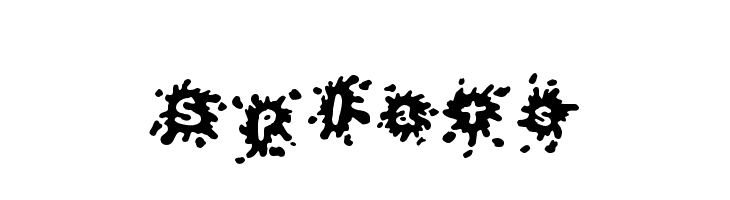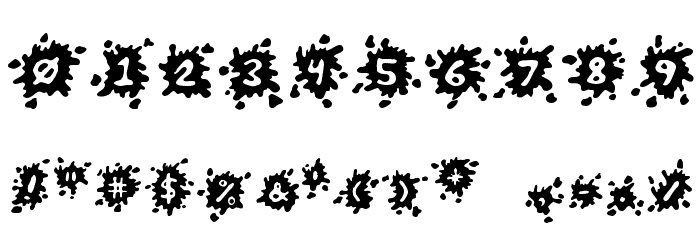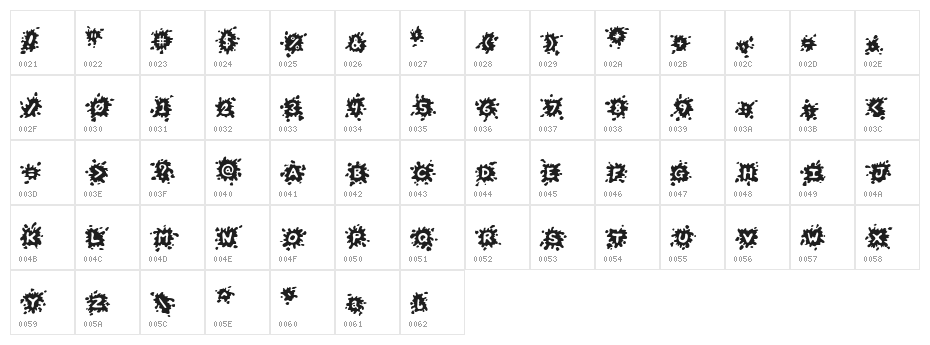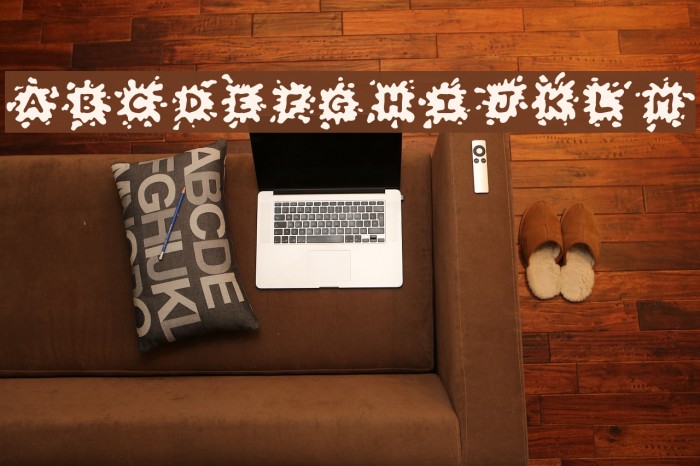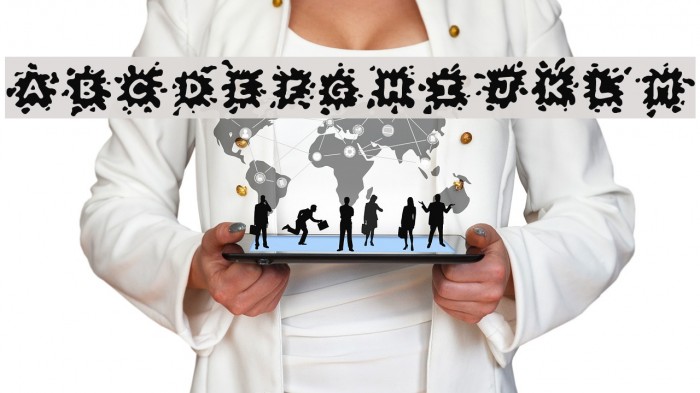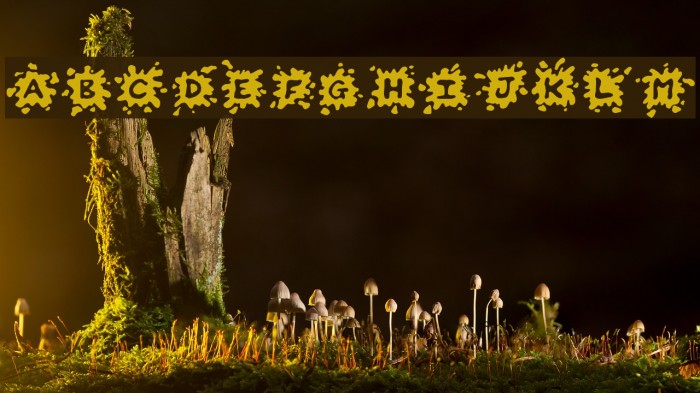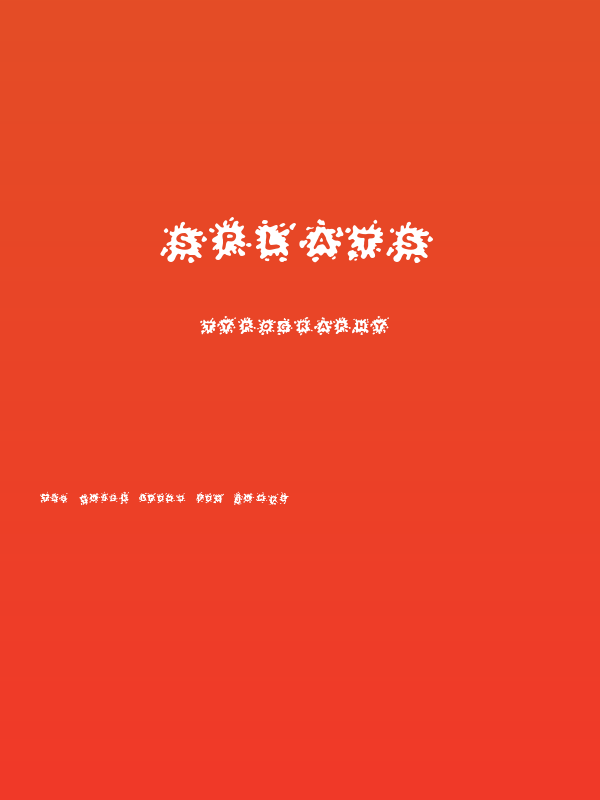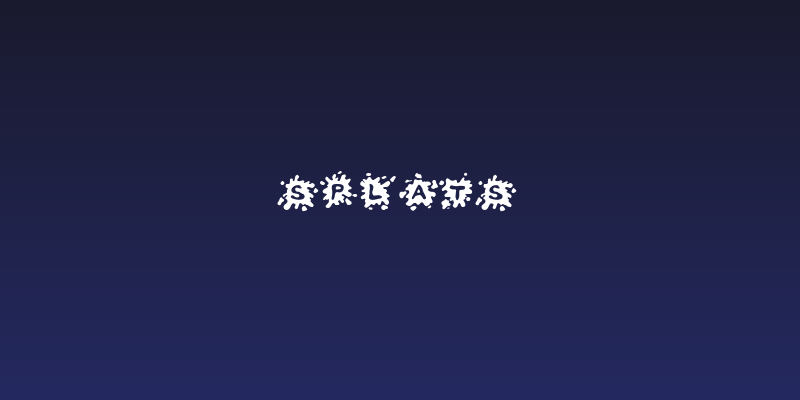
Splats Font
Splats Description
This font features a playful and chaotic design, with each character appearing as if it has been splattered with ink or paint. The letters and numbers are surrounded by irregular, spiky edges that give a dynamic and energetic feel. The bold and thick strokes ensure high visibility, making it ideal for attention-grabbing designs. The unique style of the font makes it stand out, perfect for creative projects that require a touch of whimsy and fun. The font maintains a consistent style across uppercase, lowercase, numbers, and special characters, ensuring a cohesive look in any design.
| Overall Style | Playful, Energetic, Whimsical |
| Proposed Projects | Ideal for children's book covers, playful posters, party invitations, and creative branding projects. |